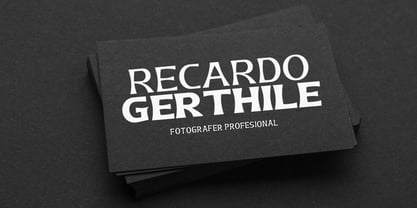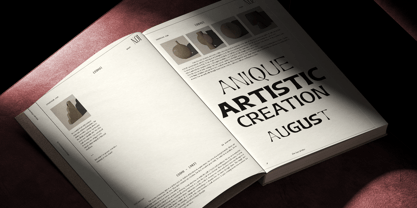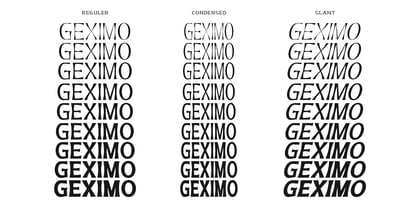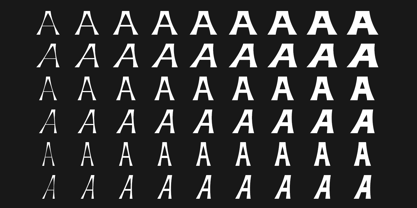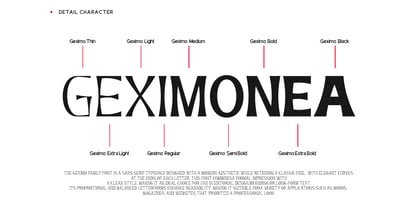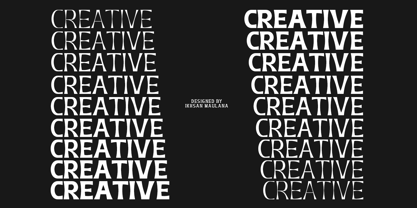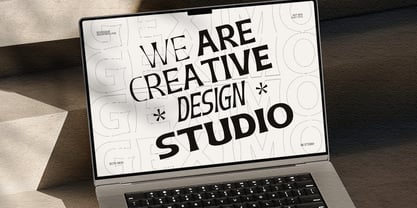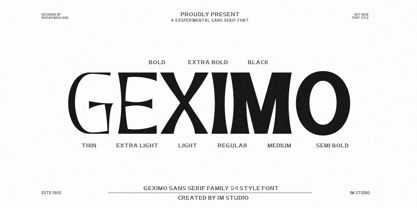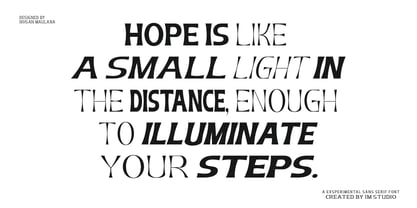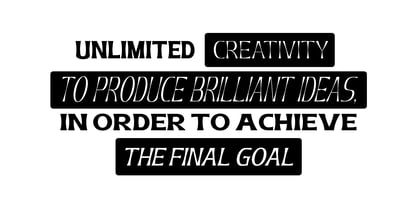
Geximo
by IM Studio
The Geximo Font Family was designed by Ikhsan Maulana and published by IM Studio. Geximo contains 54 styles and family package options. More about this family
Geximo is a typeface family that harmoniously blends serif and sans-serif styles, creating the perfect balance between tradition and modernity. Designed around three axes—weight, width, and slant—Geximo gives designers the perfect opportunity to precisely customize its appearance.
The serif style exudes elegance and refinement, making it an ideal choice for editorial design, luxury branding, and formal communications. Meanwhile, the sans-serif variant offers a clean and modern aesthetic, perfect for corporate identities, digital interfaces, and contemporary layouts.
With its expansive design space, Geximo adapts easily to a wide range of applications, ensuring legibility and visual harmony across print and digital platforms. Used separately or together, these two styles create a cohesive and versatile typographic system, allowing for limitless creative exploration. Its subtle details and dynamic range make Elghita an essential tool for designers who prioritize both aesthetic beauty and functionality in their typography.
Font Features:
6 Subfamilies: Expanded, Condensed, Reguler, Slant, Expanded Slant, Condensed Slant.
9 Boldnesses: Thin, Extra Light, Light, Regular, Medium, Semi-Bold, Bold, Extra Bold, Black
The W1G character set supports almost all popular Western, Eastern, and Central European languages/writing systems based on the Latin alphabet.